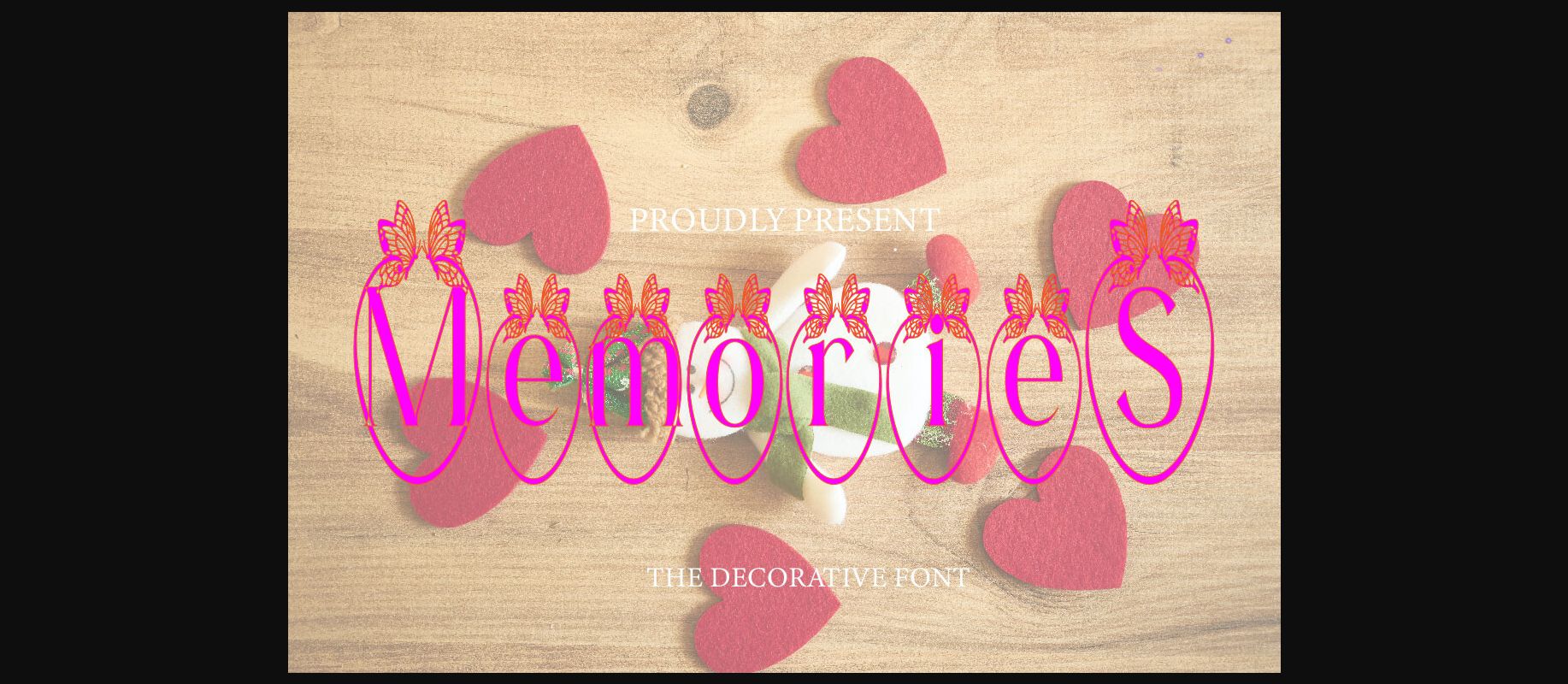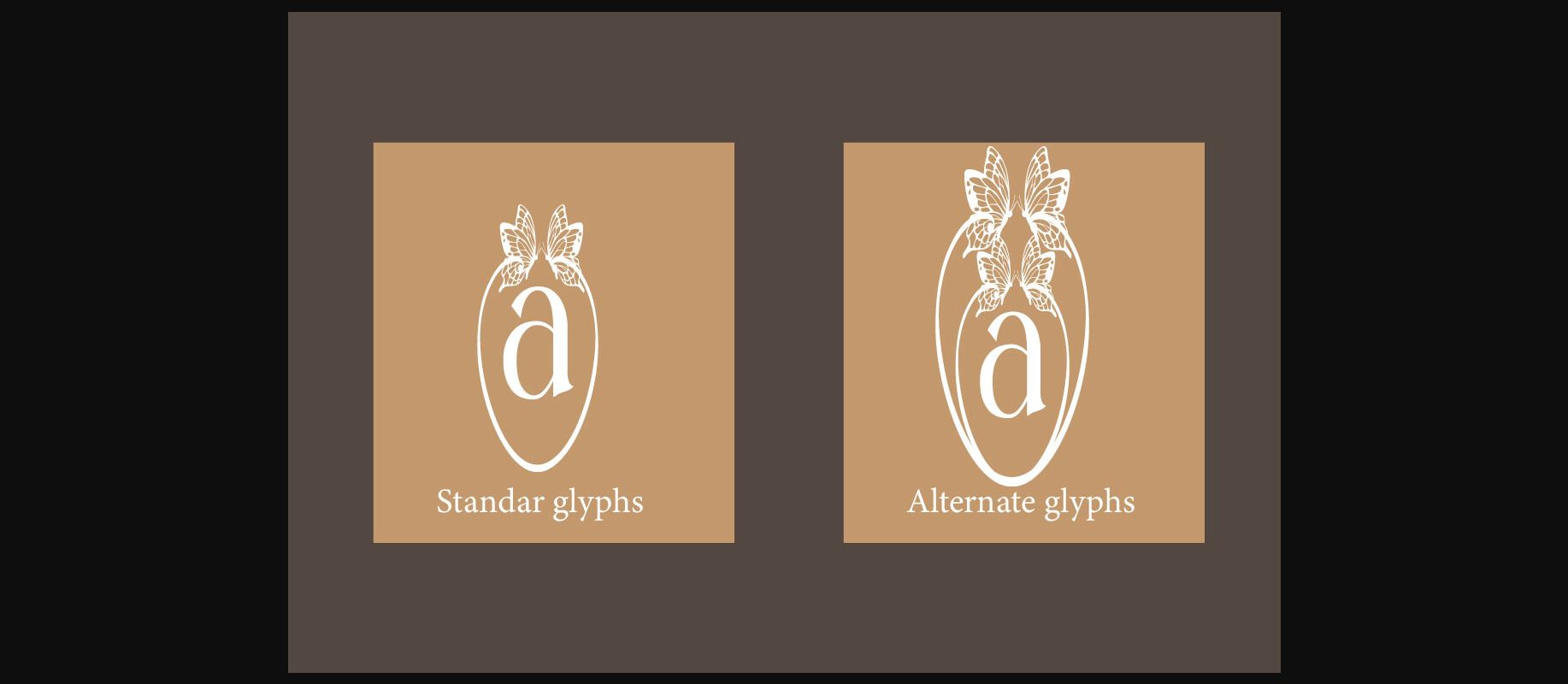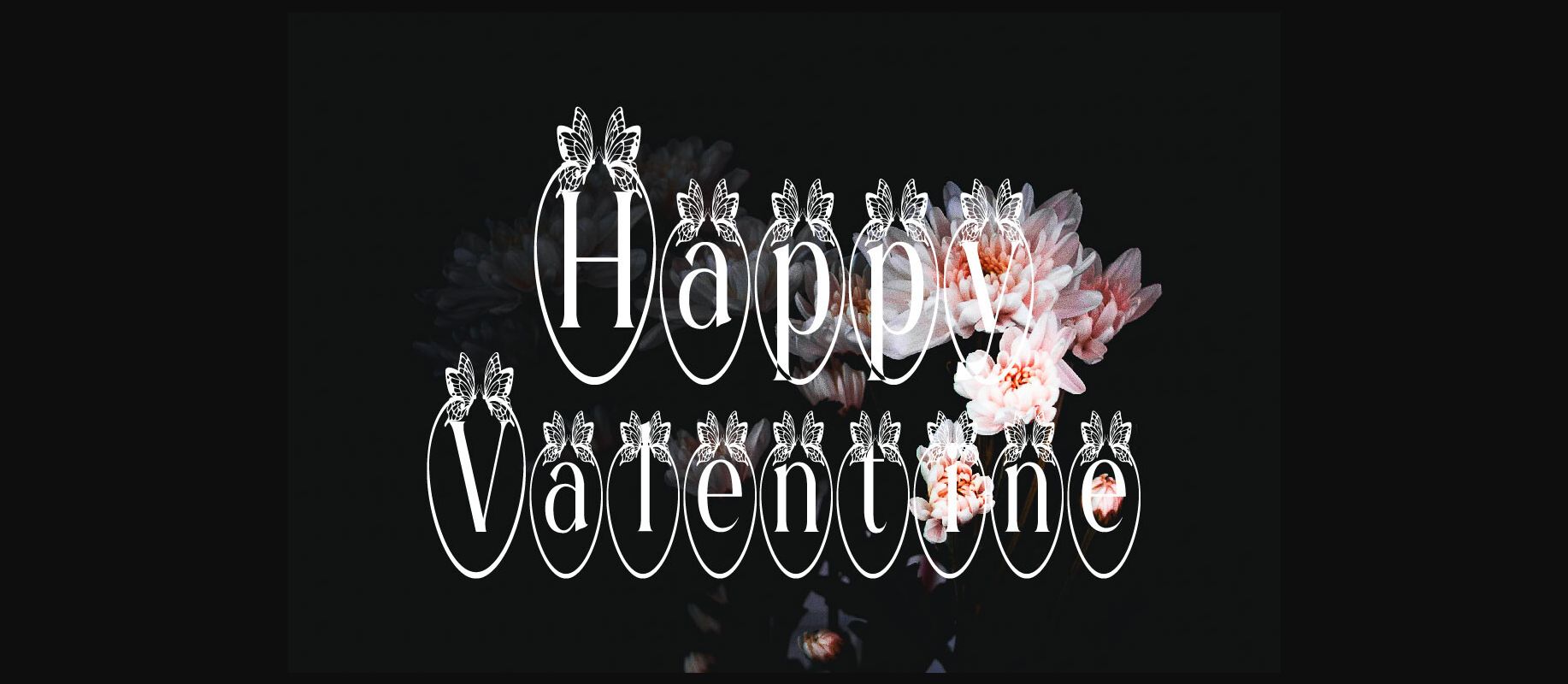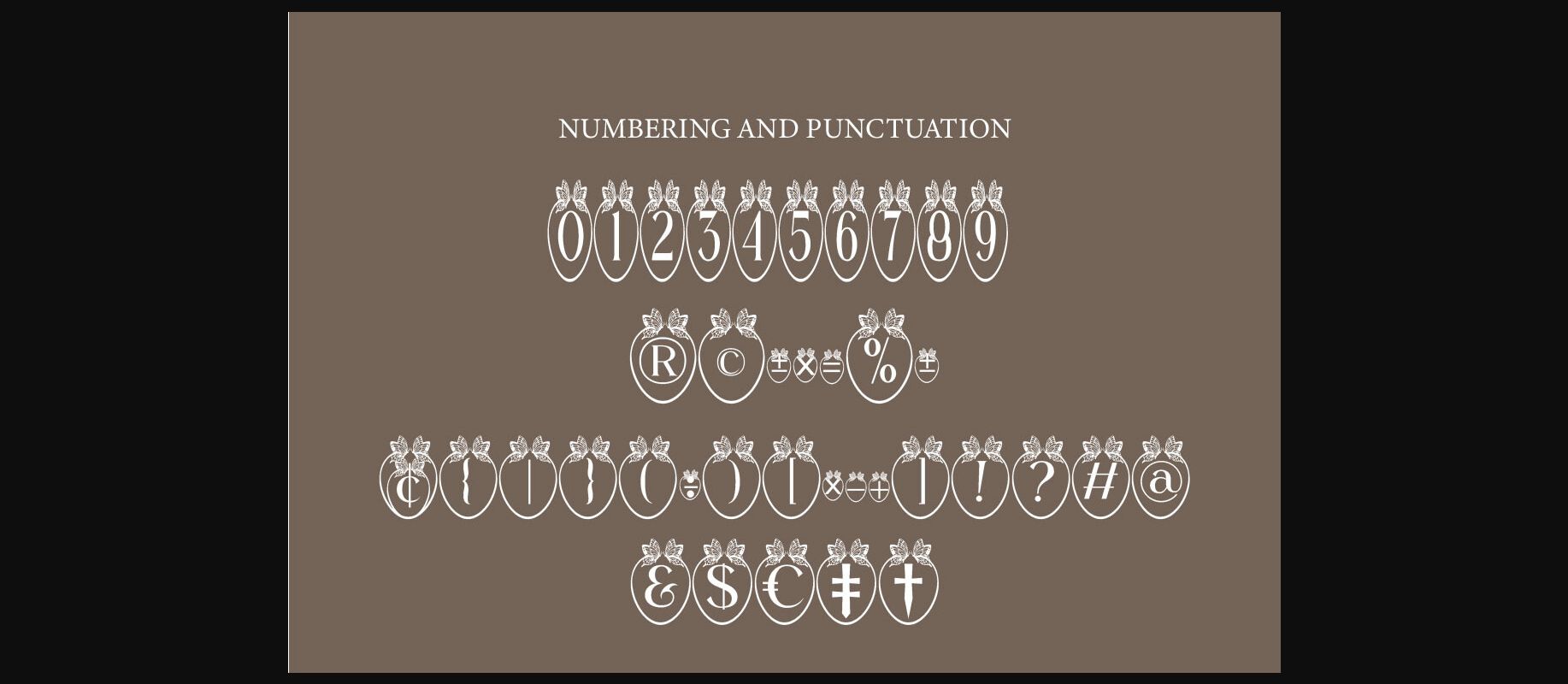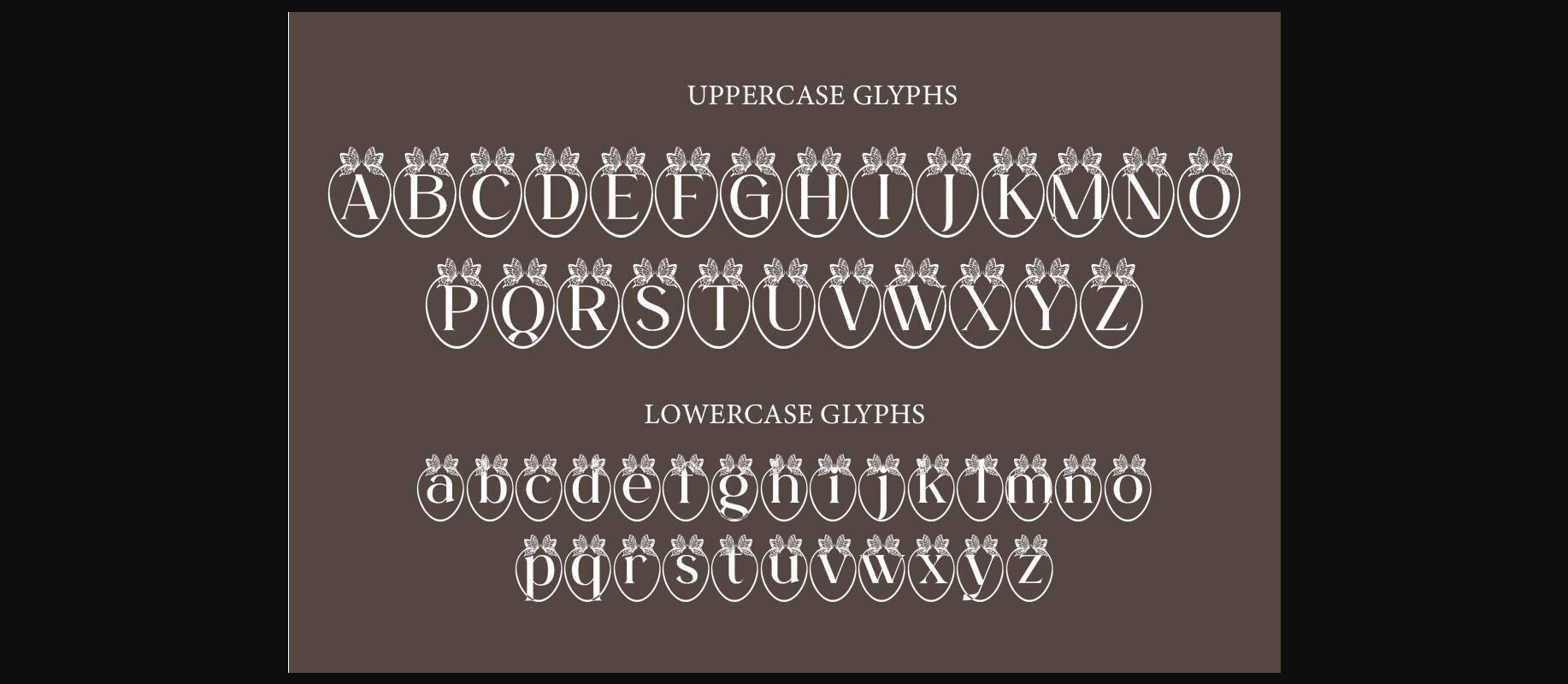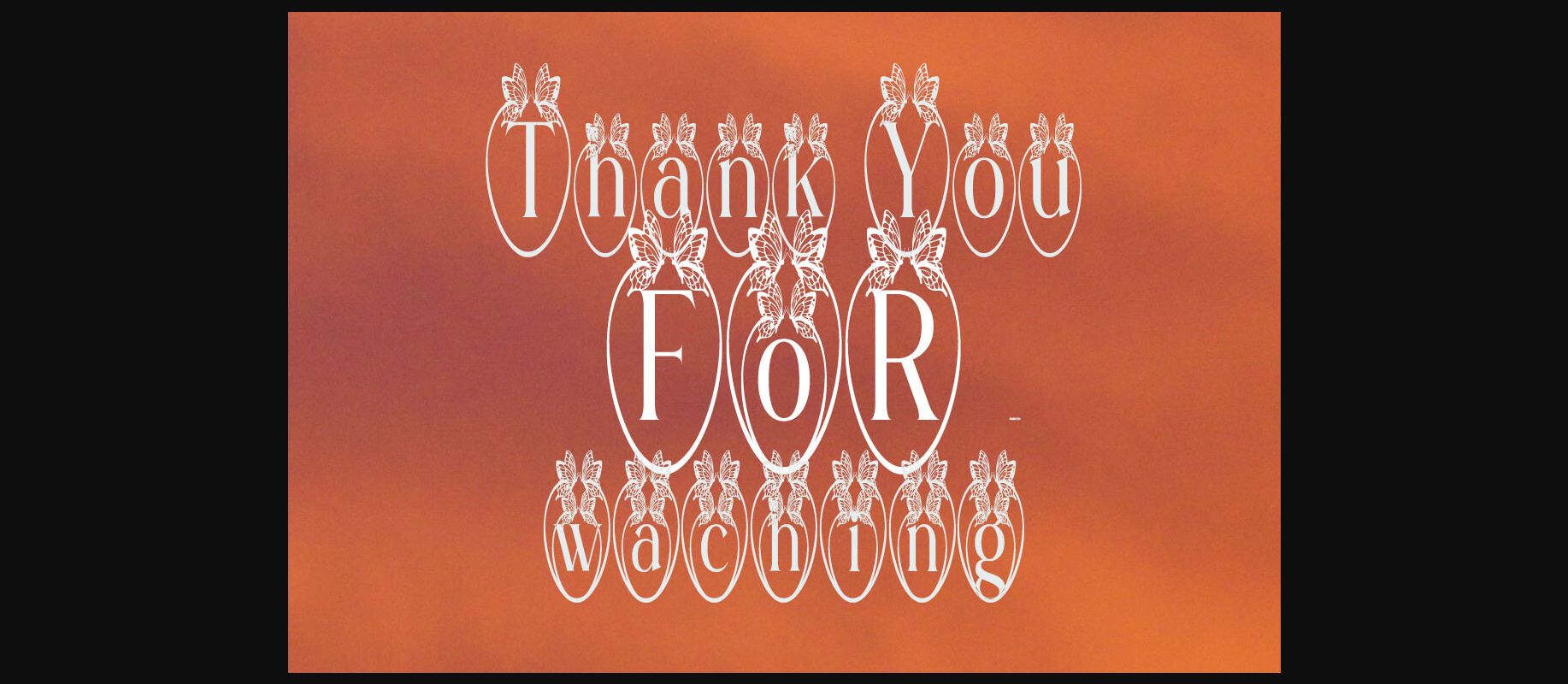
HomeDecorative FontsMemories Font Decorative Fonts Memories Font FacebookTwitterPinterestWhatsApp 1 of 9 ... Memories Font Poster 2... Memories Font Poster 3... Memories Font Poster 4... Memories Font Poster 5... Memories Font Poster 6... Memories Font Poster 7... Memories Font Poster 8... Memories Font Poster 9... About Memories Font Memories is a cute and friendly decorative monogram font. Add it to your favorite creations and enjoy the results! DOWNLOAD NOW People also explored Selna Beauty Font Wreath Flower Monogram Font Fishwrapper Easy Heraldics Font Candy Square BTN Tostada Font Blukade Font Baston Font Pebble Brown Unisex T-shirt Mockup Photo 162 0 TagsMemories Font Previous articleBlissful Love Monogram FontNext articleKitty Witty Font LEAVE A REPLY Cancel reply Comment: Please enter your comment! Name:* Please enter your name here Email:* You have entered an incorrect email address! Please enter your email address here Website: Save my name, email, and website in this browser for the next time I comment. Personal Use Free Just Love Personal Use Free Read more about this font Masker Area Personal Use Free Read more about this font Uchiyama Personal Use Free Read more about this font Shnobel Personal Use Free Read more about this font BLOG Elegant Wedding Invitation Fonts – Handwritten & Script Fonts Elegant Wedding Invitation Fonts Your wedding day is one of the most important moments of your life, and every detail matters—including your invitation design. Our... Exploring Font Trends Using Fonts in Digital Marketing: Tips to Strengthen Your Brand Identity To increase your work productivity, choose the most readable fonts.